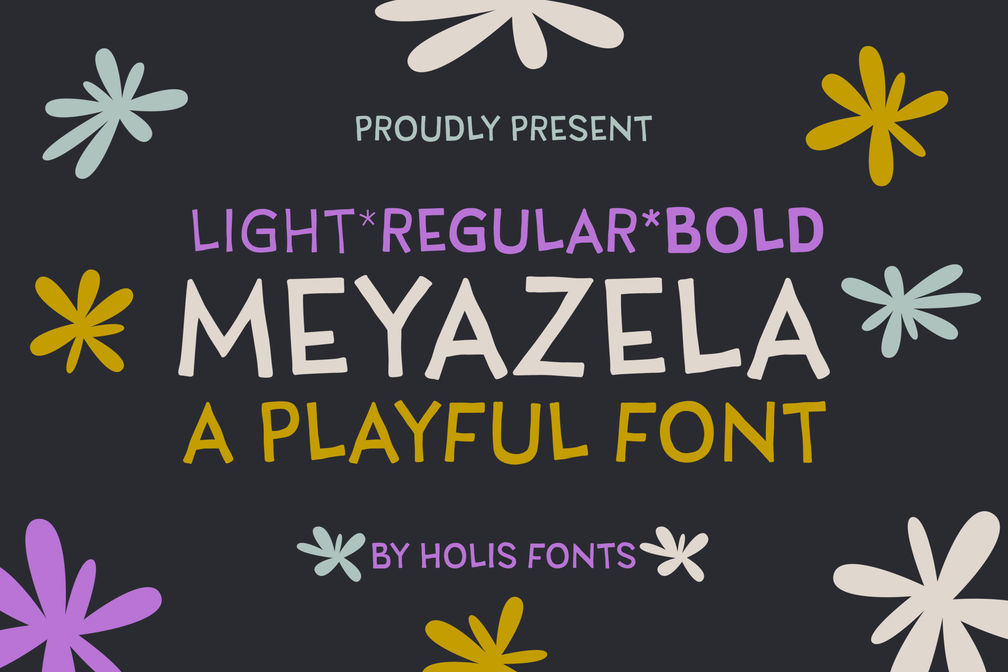
Meyazela Handwriting Sans Serif
Meyazela  is a hand-drawn sans serif font that is far from neat, which gives a natural, soft and irregular impression. It will look good and charming if applied as a logo and branding for a product. Available in 3 styles that can be mixed and matched creatively, namely Light, Regular and Bold.
Inspired by the covers of children’s books such as picture books, fairy tale books and others, which offer joy in every type.